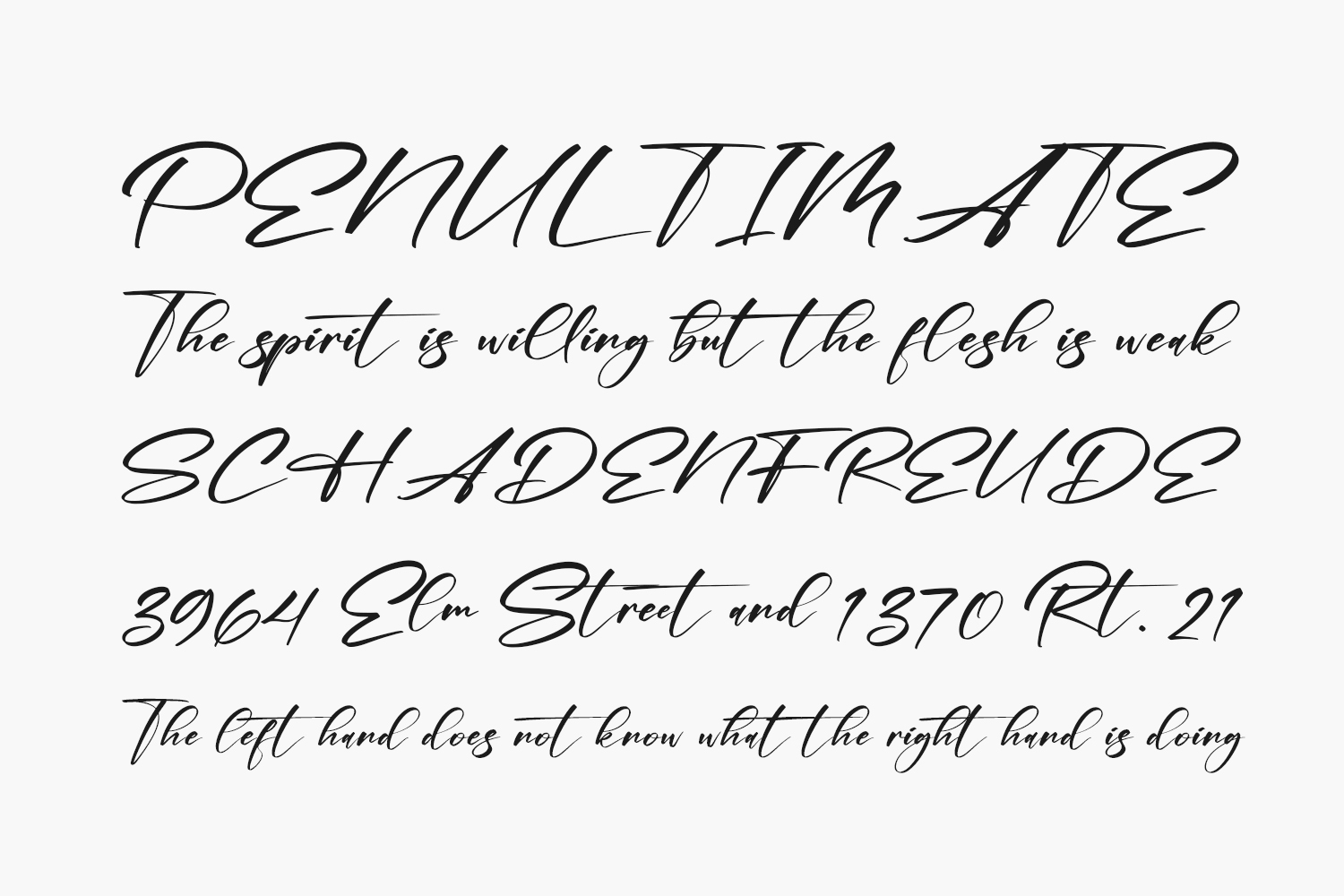
Holdiger Free Font presents a contemporary signature script font ideal for a myriad of projects, including logos, branding initiatives, homeware designs, product packaging, mugs, quotes, posters, shopping bags, t-shirts, book covers, name cards, invitation cards, greeting cards, labels, photography, watermarks, special events, and any other delightful projects seeking an elegant script aesthetic. Holdiger Free Font is free for personal use only. Please purchase the full version for commercial use.